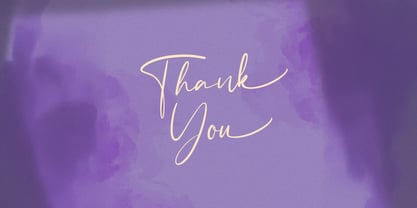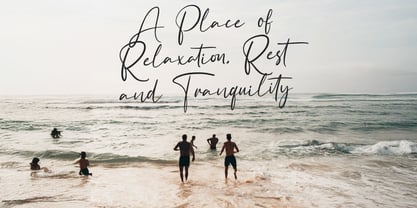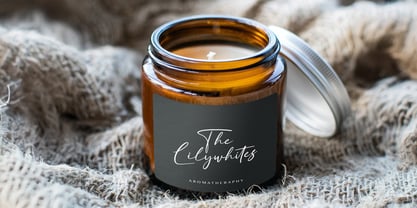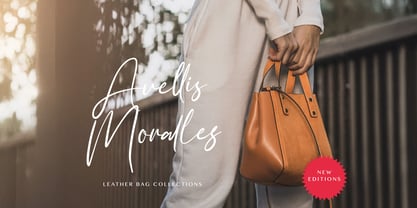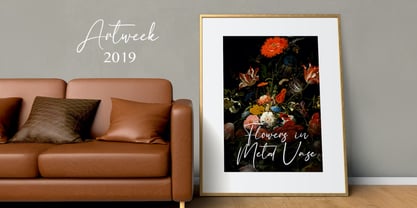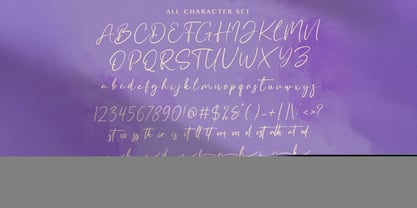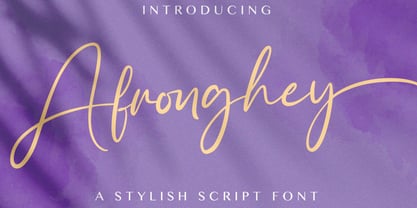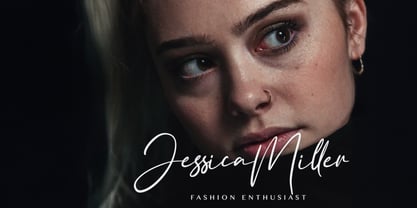
Die Schriftfamilie Afronghey wurde von Virgiawan Listanto entworfen und von Stringlabs Creative Studio veröffentlicht. Afronghey enthält 1 Stile.
Afronghey is a bold and artistic handwritten font that brings a raw, expressive energy to your designs. With its natural strokes and spontaneous style, Afronghey feels personal, creative, and full of personality perfect for projects that need a handcrafted touch with attitude.
Designer: Virgiawan Listanto
Herausgeber: Stringlabs Creative Studio
Foundry: Stringlabs Creative Studio
Eigentümer des Designs: Stringlabs Creative Studio
Afronghey